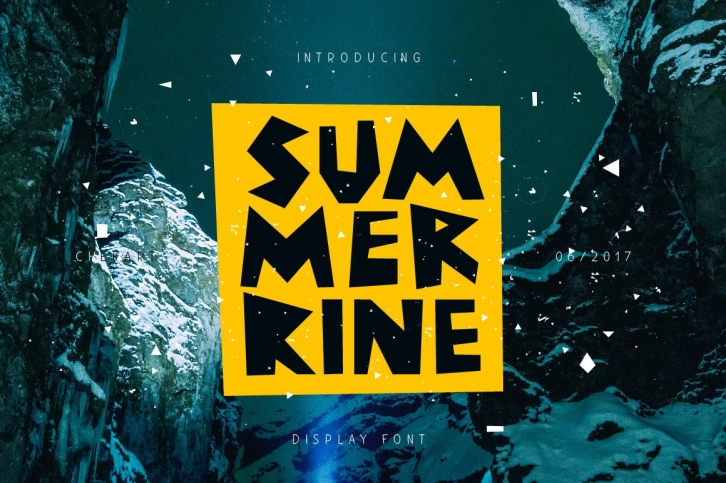
Summerrine is a geometric font without rounded elements. It contains a full set of lower & uppercase letters, large range of punctuation, numerals, cyrillic characters and international support.
Ideal for logos, quotes, posters, product packaging, t-shirt, book cover and etc.